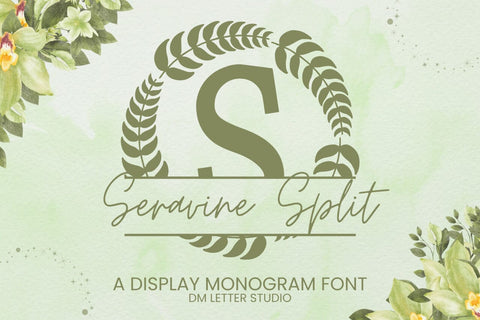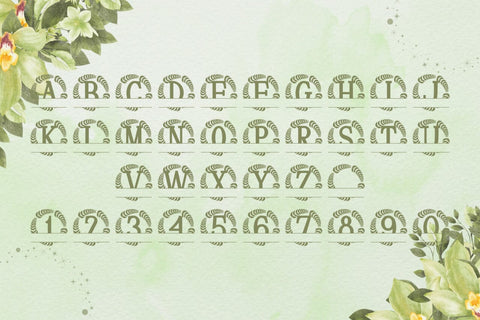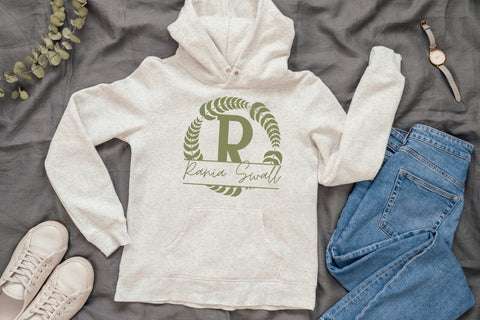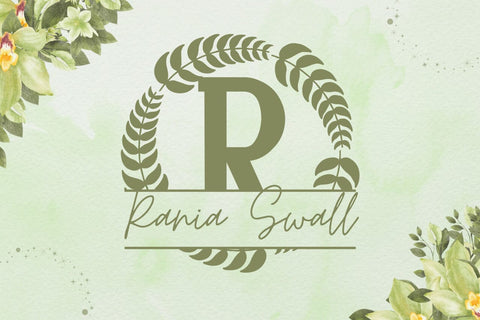
Seravine Split Monogram Font
Meet Seravine Split Monogram Font
Seravine Split Monogram Font turns initials into elegant nameplates in seconds. The letterforms feel poised and clean, while a crisp horizontal split leaves space for names, dates, or short words. Because spacing stays balanced, your results look polished with very little effort. Use it for wedding gifts, family signs, door hangers, tumblers, ornaments, and boutique packaging. Moreover, this Split Monogram Font pairs beautifully with a simple sans or light script, so every layout stays readable and refined.
Where this Split Monogram Font shines
Set a single initial, then place the family name inside the split. Next, try couple names for keepsakes or venue names for signage. Since proportions favor clarity, designs scale from large wall art to tiny tags. As a result, Seravine Split Monogram Font works perfectly for Cricut, Glowforge, laser projects, and vinyl.
Design tips for Seravine Split Monogram
Keep the main initial large to showcase the refined structure. Place the split line at center or slightly low for balance. Meanwhile, pick a clean secondary font for the text inside the split. Because the look is airy, metallic accents and natural textures add instant value—think champagne foil on blush card or matte black on walnut wood. However, keep names short so everything remains readable at smaller sizes.
Uppercase alphabet optimized for split monograms
Matching lowercase, numbers, punctuation
Curves tuned for engraving, foil, laser cutting, and clean vinyl work